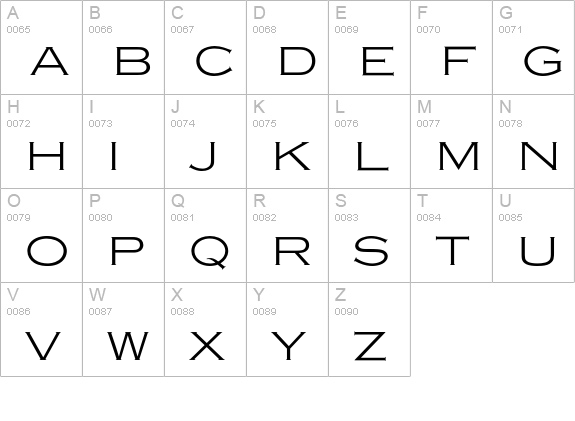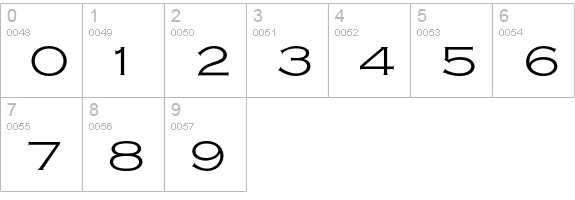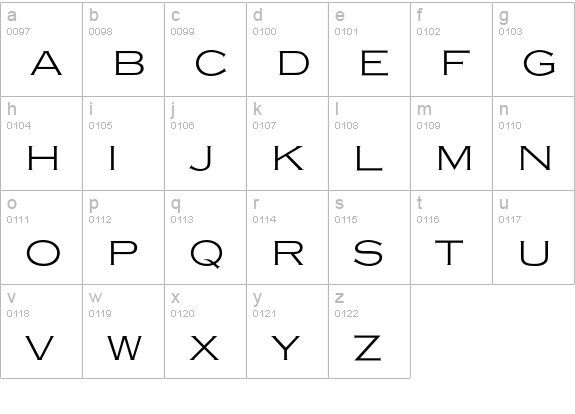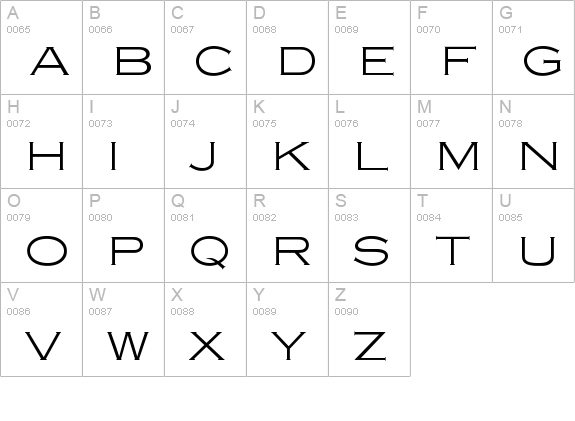
Copperplate Gothic Light Extended Font Details
Copperplate Gothic Light Extended is a refined, elegant, extended-width variant in the Copperplate typeface family \xE2\x80\x94 well suited to elegant body text, refined sub-headings, and luxury branding.
Copperplate Gothic Light Extended font is a refined and elegant typeface that exudes sophistication and modernity. With its slender and elongated letterforms, this font is perfect for adding a touch of sophistication to any design project. The clean lines and sharp edges of Copperplate Gothic Light Extended make it a versatile choice for a wide range of applications, from branding to editorial design. What sets Copperplate Gothic Light Extended apart is its timeless appeal and versatility. Whether you're creating a sleek logo, designing a stylish website, or crafting a sophisticated print layout, this font will elevate your work to the next level. Its legibility and distinct personality make it a standout choice for any design project. The best part? Copperplate Gothic Light Extended is available for free download at FontsMarket.com. Now you can easily access this premium font and enhance your designs with its unique charm and elegance. Don't miss out on the opportunity to add Copperplate Gothic Light Extended to your font collection and elevate your design projects with its timeless beauty.